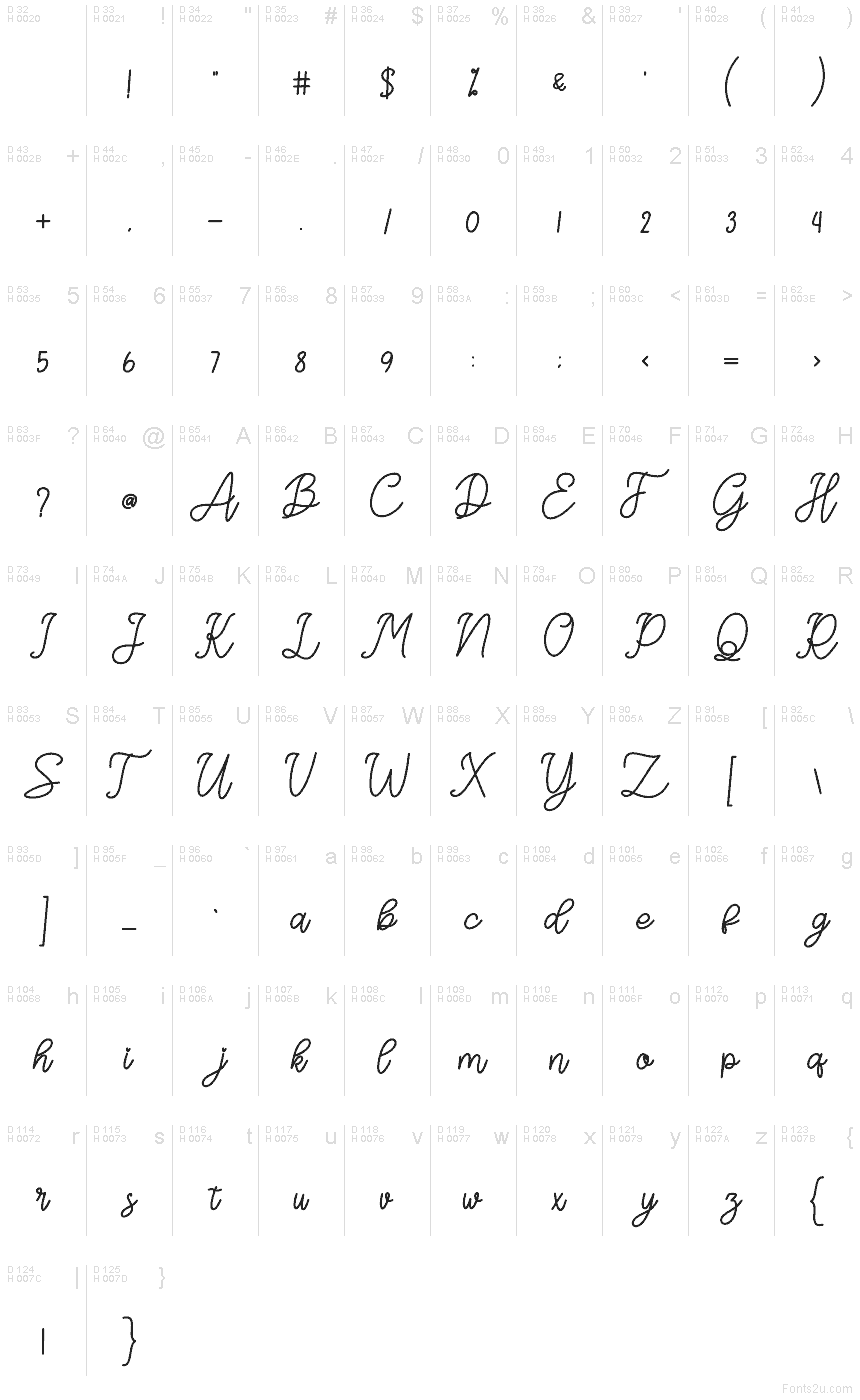
Felythia
Felythia font by Skiiller Studio is a free handwritten script typeface with a warm, personal touch. Its smooth, looping strokes feel like fresh ink from a favorite pen, while the gentle curves and playful heart accent add a soft romantic flair. The lines are clean and confident, giving your text that “handwritten, but still polished” look that’s hard to fake with standard scripts.
Using Felythia, you can bring an intimate, crafted feel to wedding invitations, save-the-dates, greeting cards, logos, product packaging, Instagram quotes, and blog headers. This free font shines at larger sizes where the flowing connections and subtle details can breathe. Pair Felythia with a simple geometric sans serif for body text to keep everything readable while letting the script take center stage in names, headlines, and key phrases.